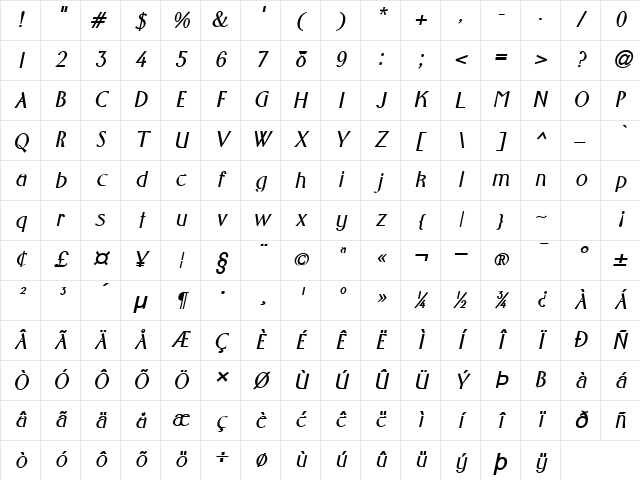
Wright Bold Italic
Wright Family
Design Context for Wright
Wright is a composed and adaptable typeface that performs quietly and consistently across a wide range of design contexts. The slanted form adds forward momentum and visual energy. Its bold stroke weight gives it real presence on the page.